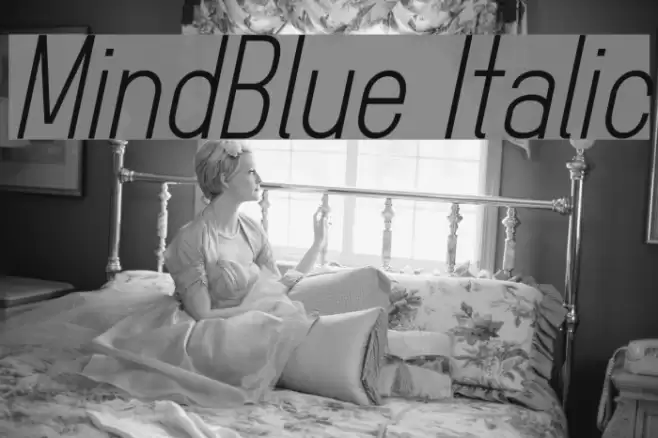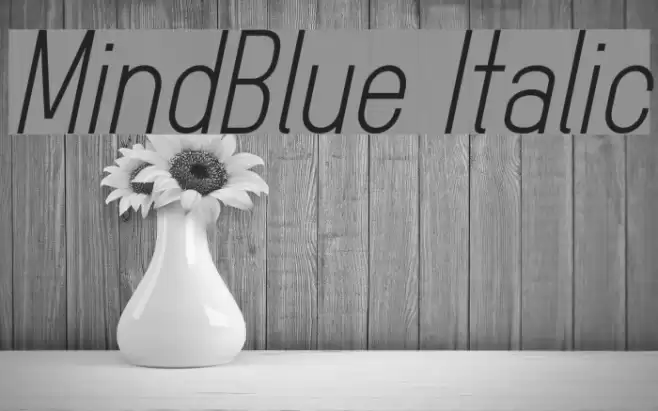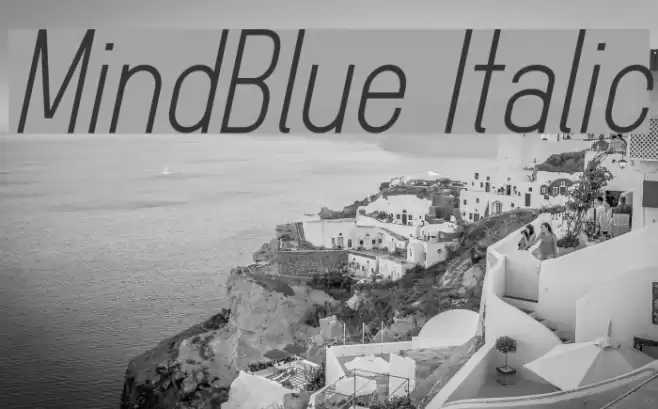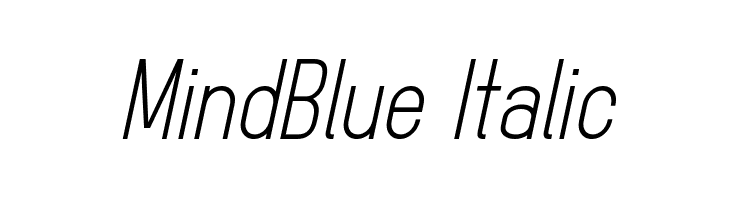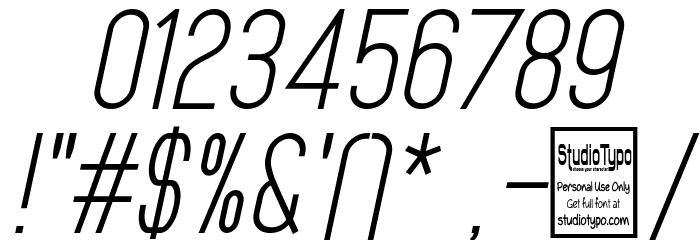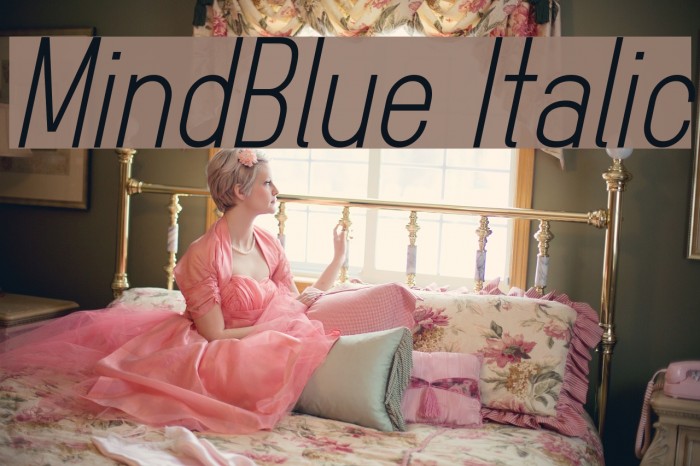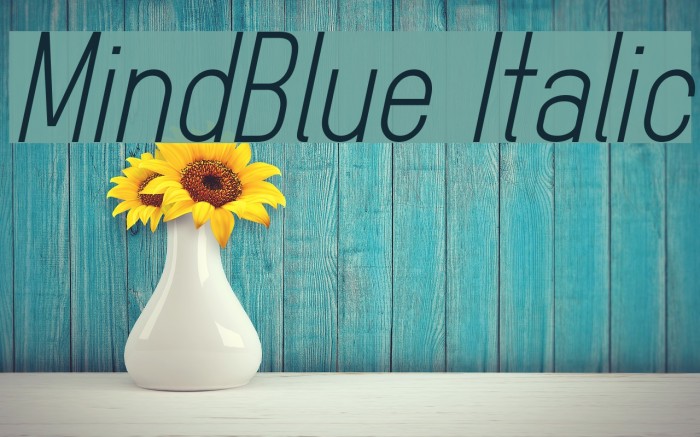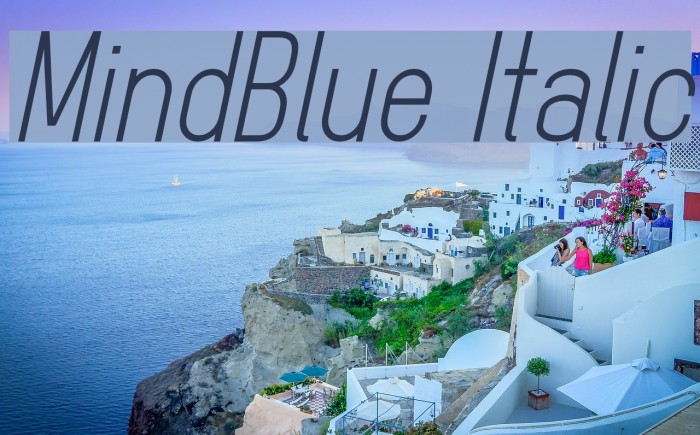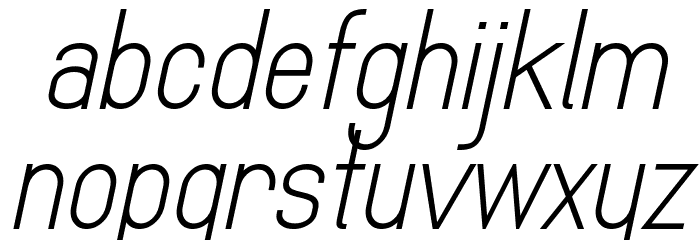
MindBlue Italic Font
MindBlue Italic Description
This font features a sleek and modern design with a distinct italic slant, giving it a dynamic and forward-moving appearance. The characters are elongated and slightly condensed, providing a sense of elegance and sophistication. The strokes are consistent in weight, offering a clean and uniform look across all characters. The uppercase and lowercase letters maintain a harmonious balance, while the numerals and special characters are crafted to complement the overall style. This font is versatile, suitable for both digital and print media, and can enhance the visual appeal of various design projects.
A modern, italicized font with a sleek and dynamic design from Uncategorized fonts.